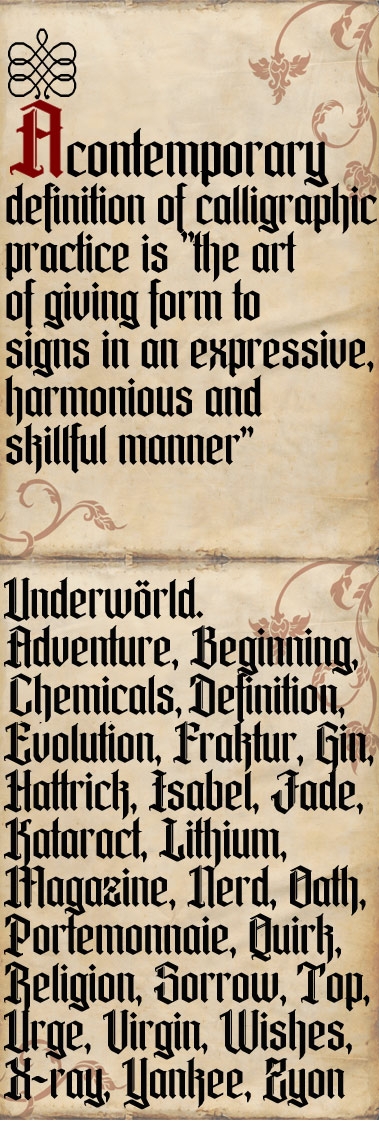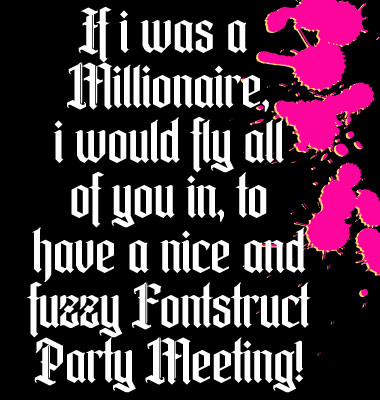
Supreme expression of the style. Gorgeous samples. Every. Single. Letter. Is. Beautiful.
I'm going blind from over-exposure to pure awesomeness! Unbelievable. My new favorite blackletter. Masterfully crafted. Beyond "practice." Oh, the beauticity.
That is so sharp you can get cut just by looking at i- OWW!
Baby, you were born to blackletter.
Damn.
The entire set is excellent, but the uppercase blows my mind.
Simply superb. Love the way the Upper Case has a 3D feeling about it.
I can understand about the hours & hours to do thing. I've got two Black Letter fontstructs waiting to be completed. The upper case is soooo tricky to get something contemporary, yet still retaining the old style.
Ieally brilliant effort kix. 10
yes, outstanding ;)
Holy Stuttgart, that is beautiful! When you said you were doing blackbetter, you really, really meant it. I'm going to go read the Gutenberg bible now.
Amazing!, love the lowercase, especially g,k,z...
The uppercase is just gorgeous! this is 10!
Really outstanding what you did here!
"blackbetter" was my first attempt on old styles. it will soon be re-published. stay tuned
... also das kleine zett is ja wohl ein oberhammer ...
here you can see, that the old monks drew modular letterforms ;)
kix = font-god!
I remember blackbetter, kix! You've come a long way! Extra points for having an umlaut in the font's name. :-)
!! respect !! very well crafted!
perfect 10.0
I wonder if we'll ever see a better blackletter in FS. That x! r! k!
pure perfection. i wouldn't believe this was made in fontstruct if i didn't see it right here.
i guess commercial font designers should finally start to be scared by fontstruct. fonts like this one are gonna make them lose quite a few clients.
nur das kleine w juckt mich mit seiner assymetrie irgendwie ein klein wenig im auge... weiss aber nicht ob mich die symmetrische version nicht auch jucken tät... das problem könnt also auch am auge liegen.;)
das mit dem "w" is so ne sache...
ich glaube ich hätte gar nicht mal was gegen assymetrie, aber das wär GEGEN die hauptprämisse dieses fonts.
Nämlich der Form der Kalligrafiespitze treu zu bleiben.
In diesem fall etwa so geformt, wie ein "accent aigu". Ich finde, für eine schrift, wie diese, eine der wichtigsten eigenschaften, um hinterher auch authentizität auszustrahlen.
so... i think it will stay as it is :)
About this beauty: Kix, get into real fonts, I know I propably repeat myself, but your talent is overwhelming. There's no way to tell what you'd be able to do with real path constructed fonts. ;)
Comment by David Neustadt (saberrider) 11th june 2009
Ditto what saber said. I can hardly believe you've even shared this one, kix. So first, thanks for sharing. I would have saved this fontstruction for a professional release. Shortly after you shared this, I was checking out other retail blackletter fonts. My main thought was that Underwörld should be among them. It reveals a sophisticated maturity in your work. It's brilliant.
Comment by geneus1 11th june 2009
Congratulations! FontStruct Staff have deemed your FontStruction worthy of special mention. “Underwörld” is now a Top Pick.
Comment by gferreira_admin 11th june 2009
@saberrider you're completely right. there has been a lapse in top picking recently. this is a fantastic example of that! we'll catch up as soon as we can. the great news is, we've got a new staff member on board who will work on the top picks as well, as many other parts of FontStruct. he's just started so please be patient.
Comment by Rob Meek (meek) 11th june 2009
There is no doubt this is a landmark FontStruction. The missing Top Pick badge is as much my fault as anyone’s as I haven’t been able to dedicate myself to Gallery maintenance over the last couple of weeks.
YOU ARE GREAT! I tried many times to make a gothic fonts, but it was too difficult to me.. Bravissimo!!
AWESOME font, bravo :)